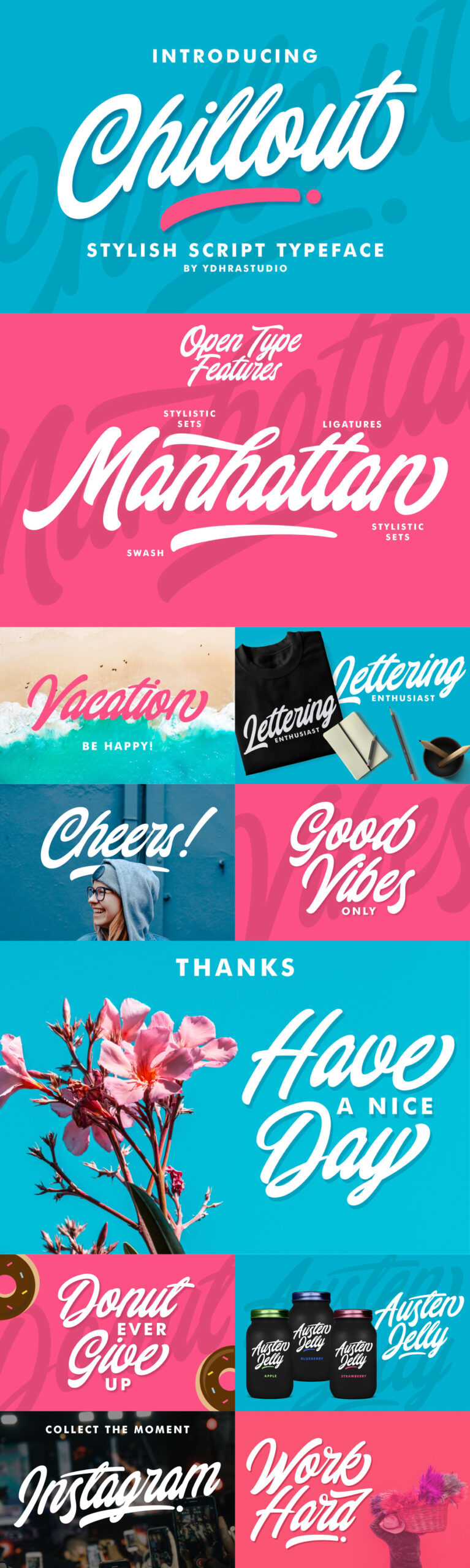
Designed by Yudha Ageng, Chillout Script is a beautiful handwritten font. This elegant script is a great choice for invitations, wedding announcements, greeting cards, branding, business cards, T-shirts, totes, mugs and more. Free for personal use! For commercial use please go here.